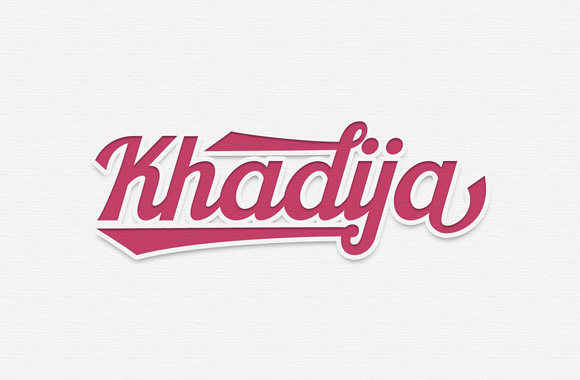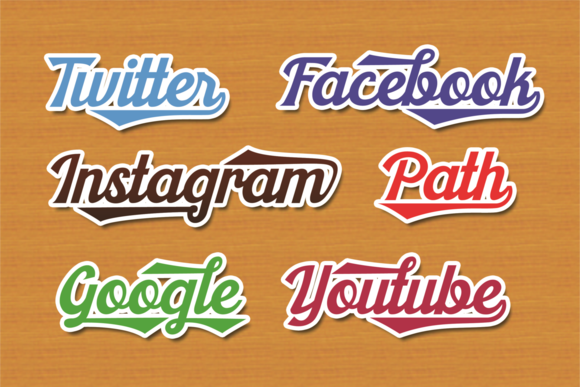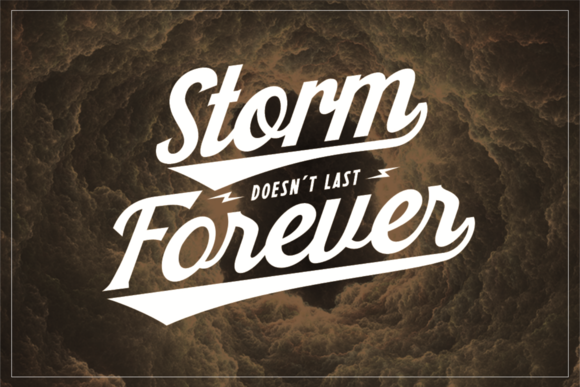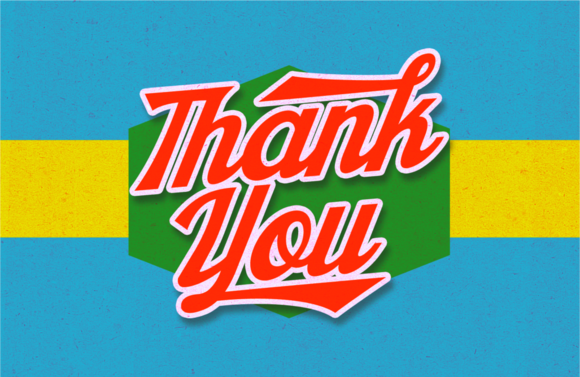
Khadija Script Font
About Khadija Script Font
This beautiful typeface can be used for various purposes such as headings, logos, posters, book covers, mugs, bags, newspapers, invitations, and much more! OT Features; Swash, Stylistic Alternates, Replacement Glyphs, Contextual Alternates, Standard Ligature, and More.